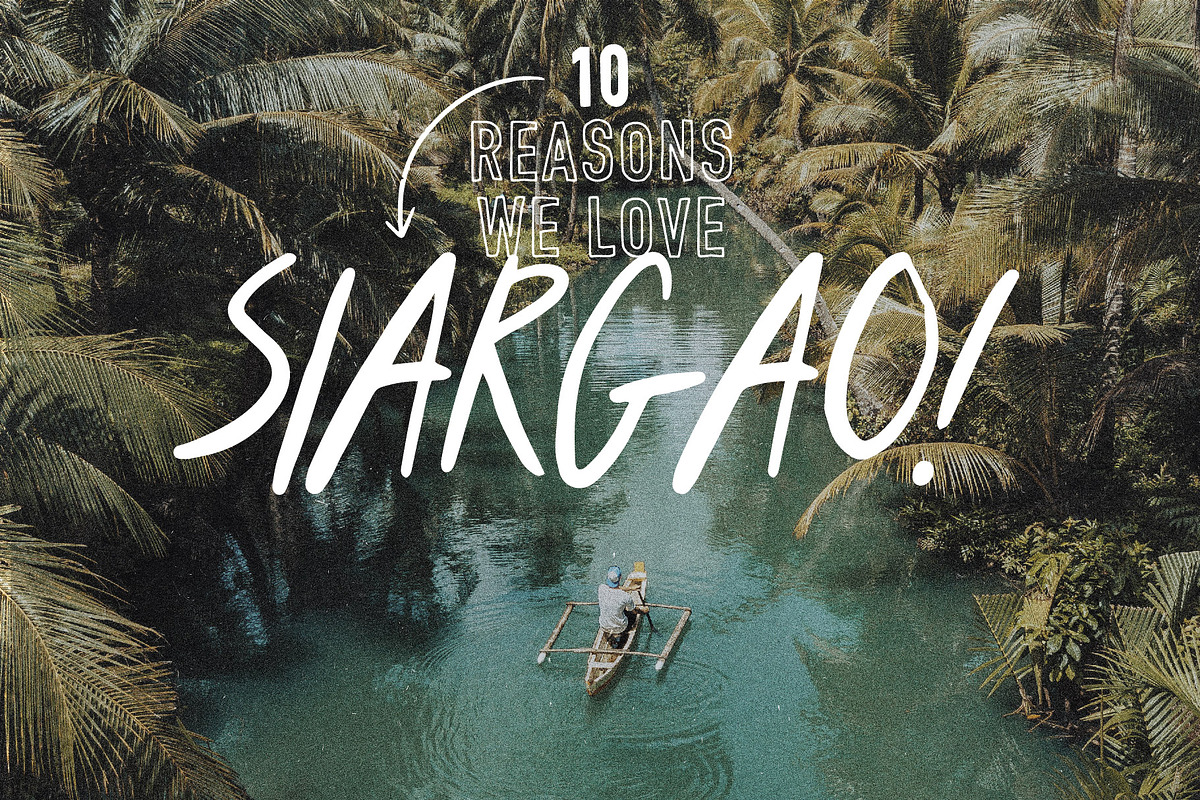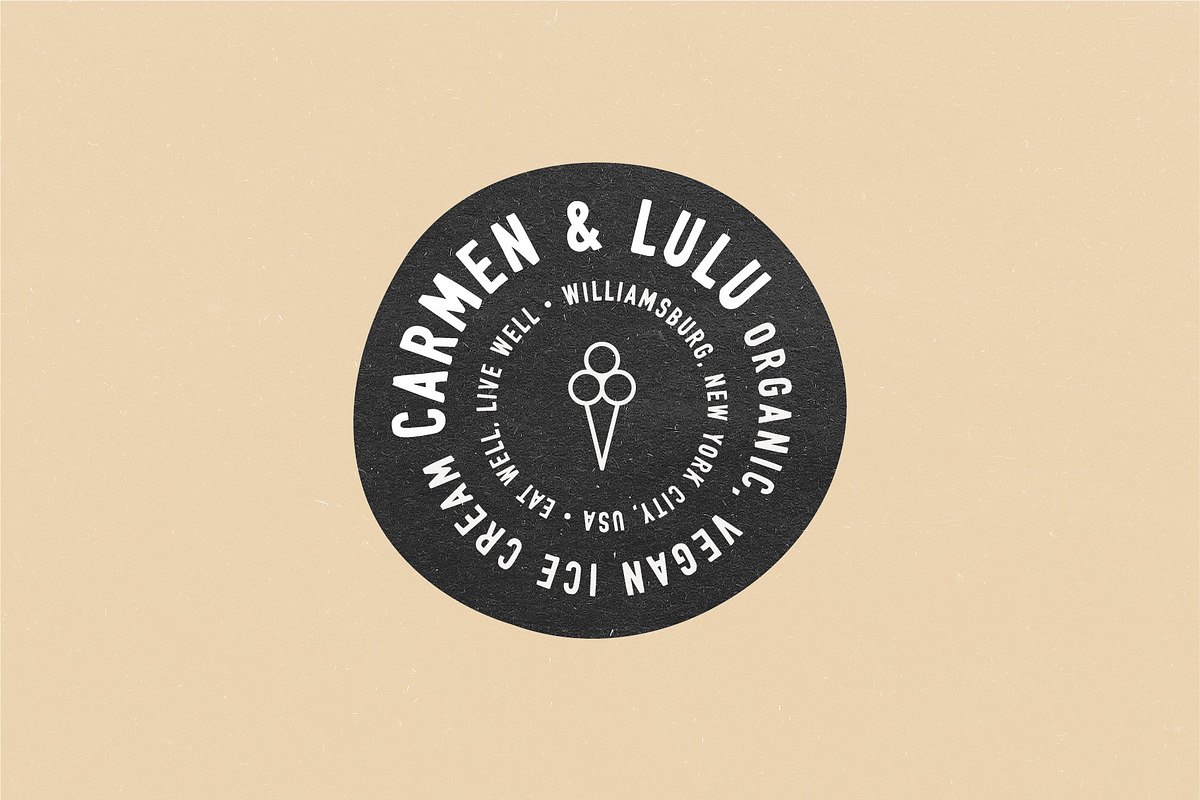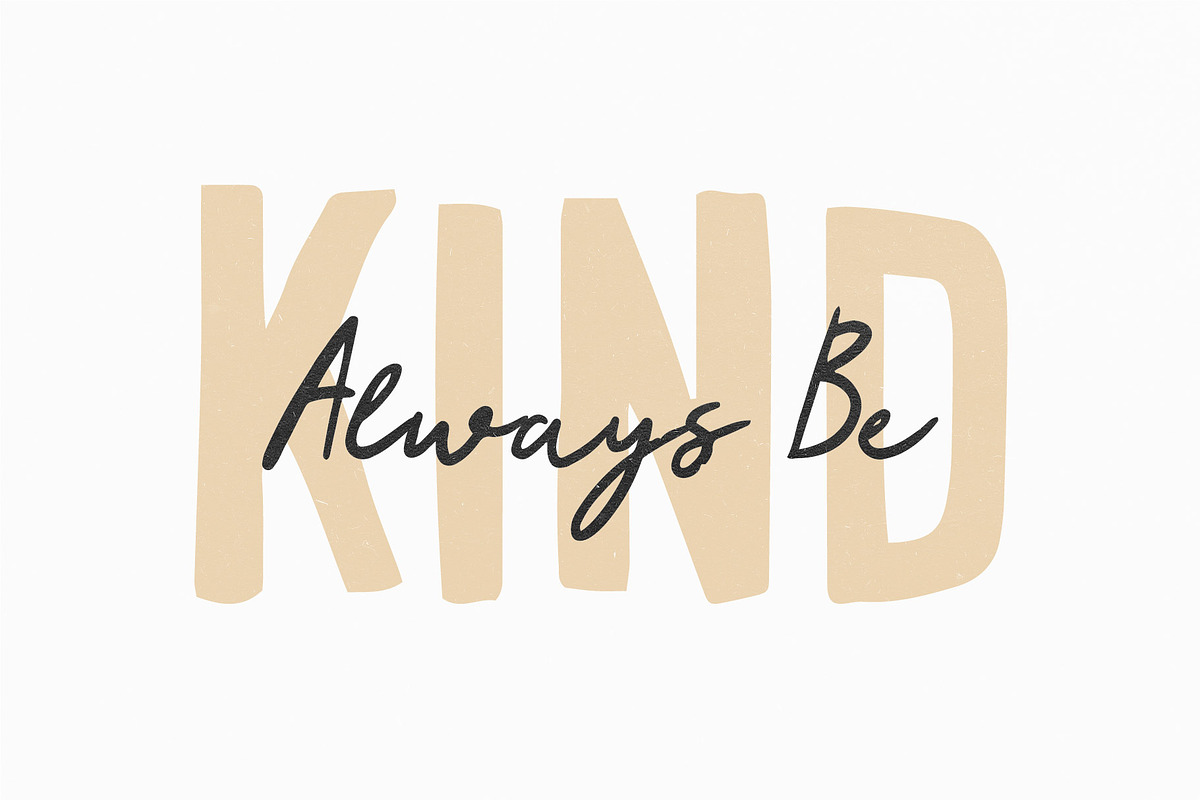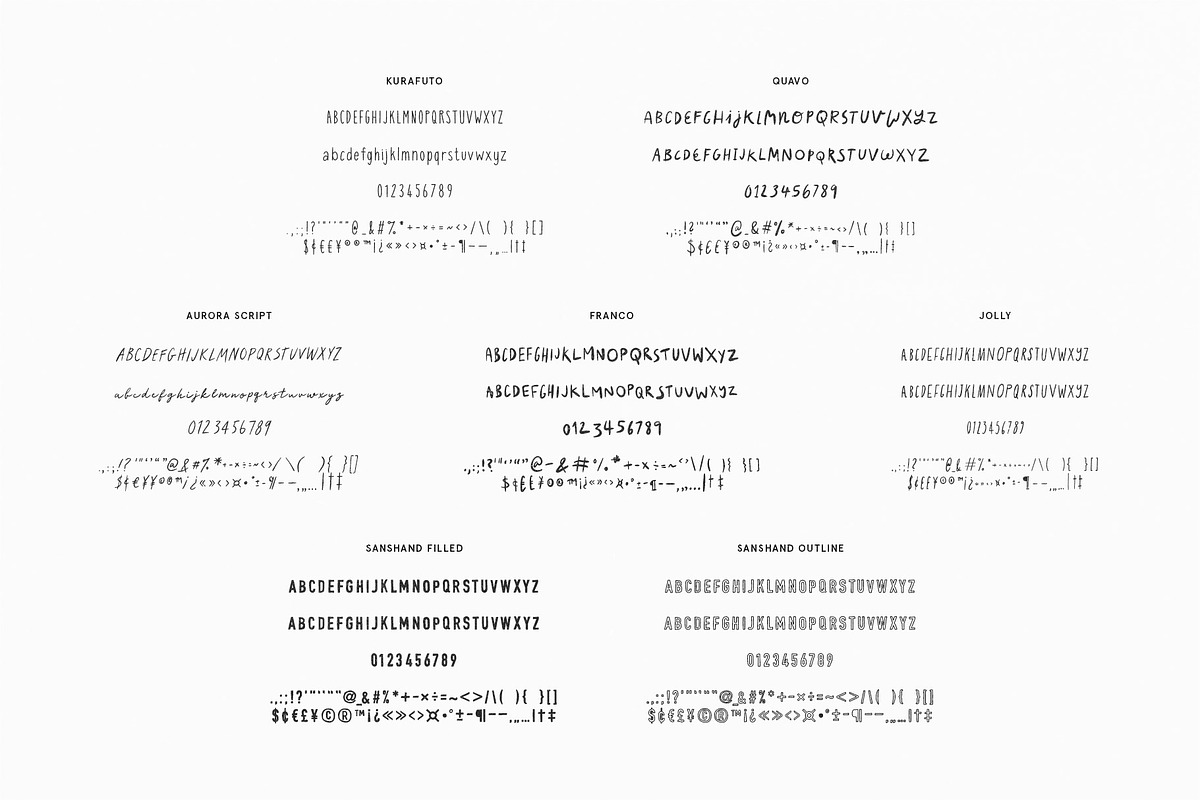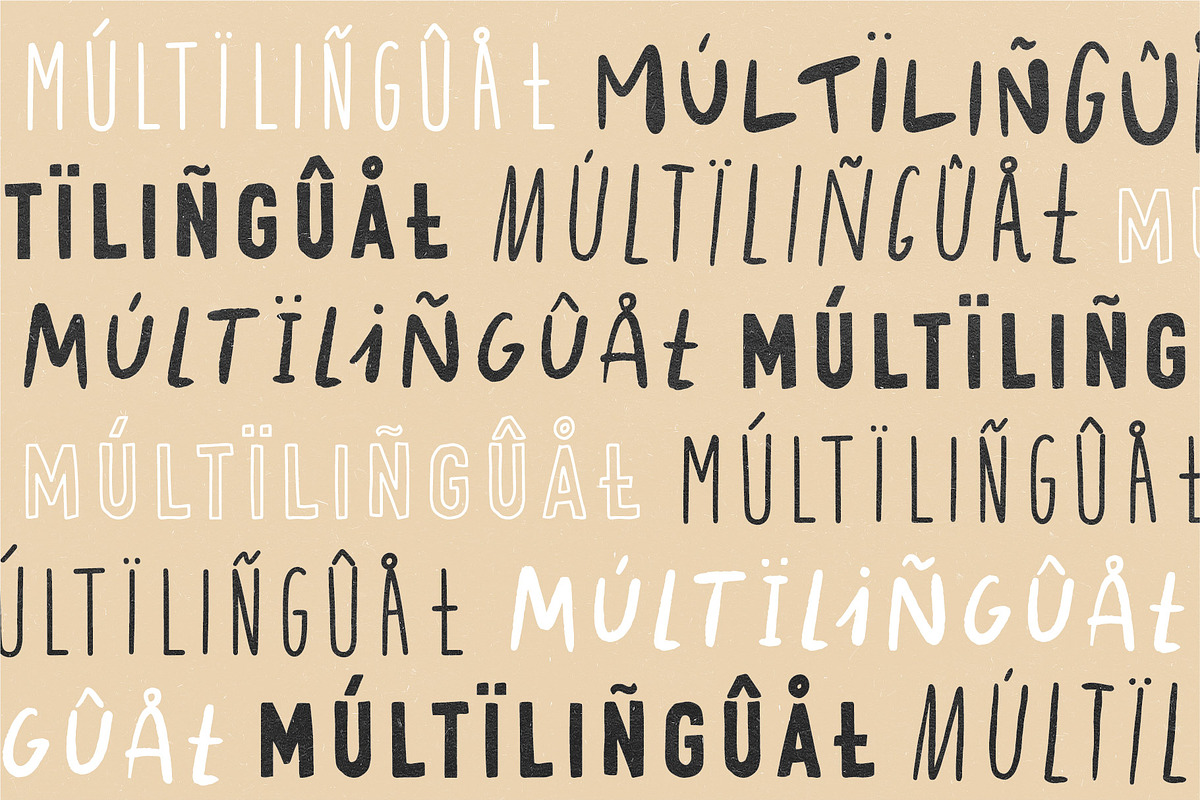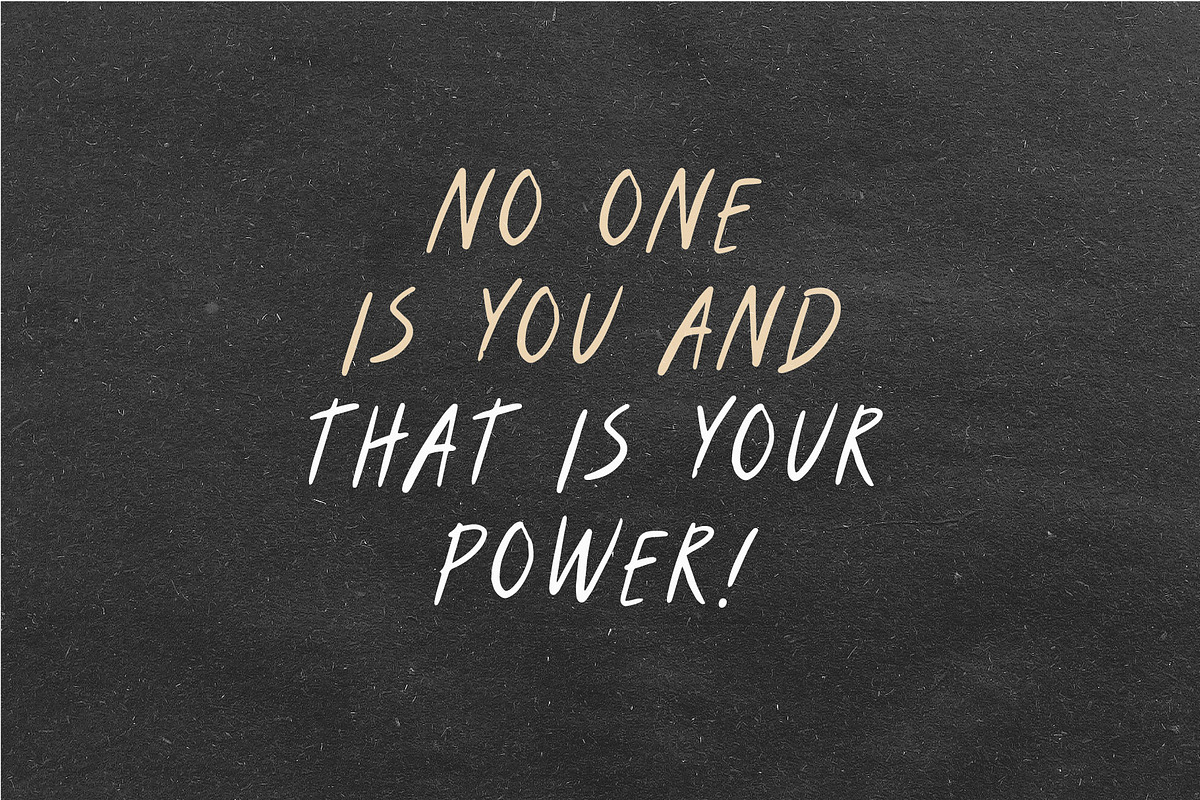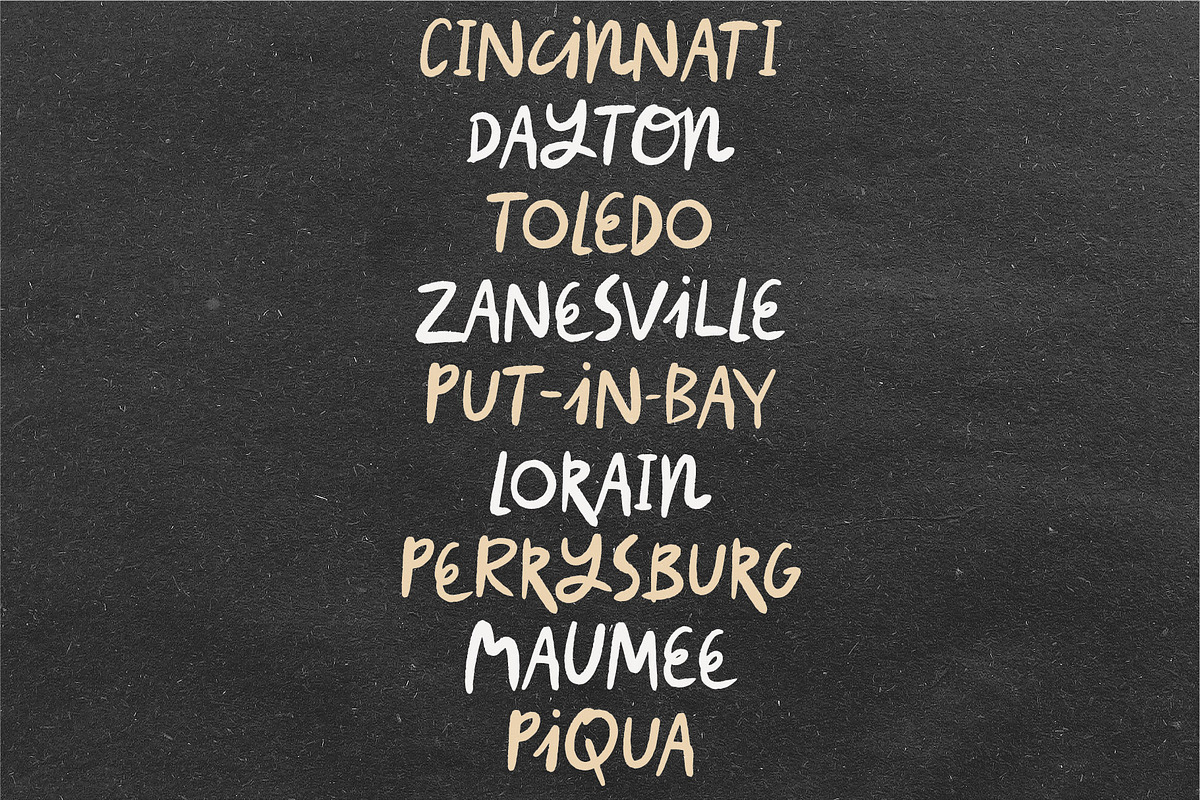
Handwritten Font + Graphics Bundle
Introducing our new product, the Handwritten Font Bundle - a set of 7 handwritten fonts (and hand drawn elements) to add a rustic, natural and authentic look and feel to your branding and design work.
Sanshand Outline Font
Free hand drawn graphic elements
- What's included Jolly Font Sanshand Filled Font Sanshand Outline Font Kurafuto Font Quavo Font Aurora Script Franco Font Multilingual Suppor